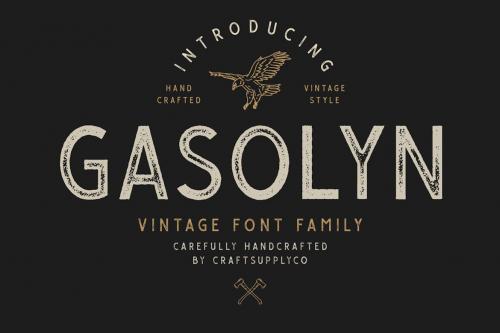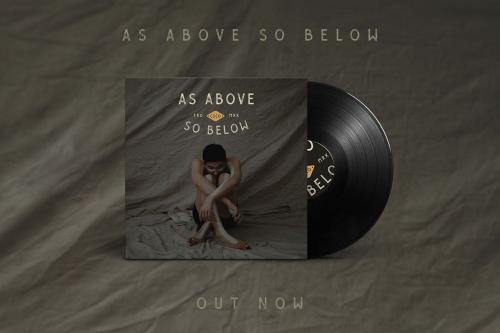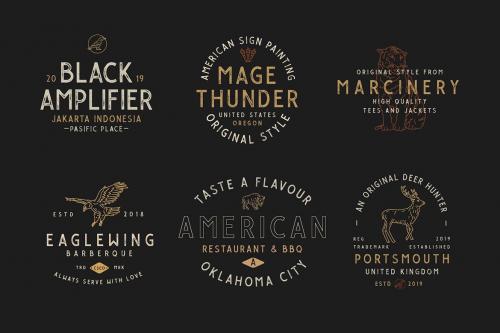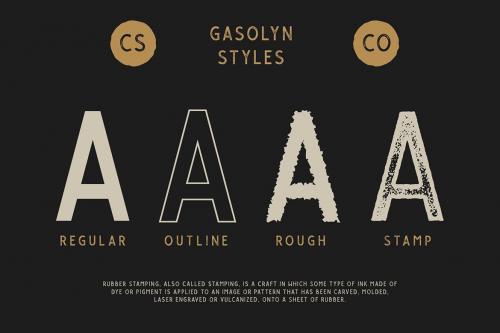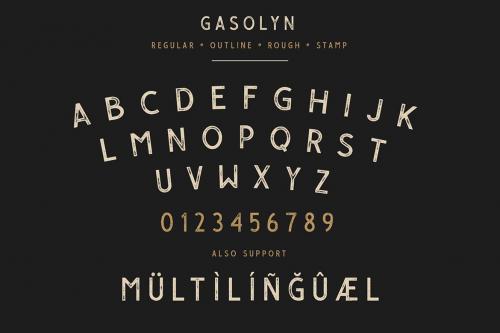
Meet Gasolyn Font Family, which has 4 Style Fonts. You can use it for almost any kind of design project, like print materials. Just add some graphic design from Extras to your imagination, and your project will look more lively and awesome with Gasolyn Font. Whether you need a greeting card, a package design, a brand identity, a craft design, a DIY project, a book title, a wedding font, a pop vintage design, a retro design, or anything else to make your art / design project look beautiful and stylish, you can use any style of this font!
You want to make a greeting card or a package design, or even a brand identity, craft design, any DIY project, book title, wedding font, pop vintage design, retro design or any purpose to make your art / design project look pretty and trendy? Feel free to play with all style of this font!